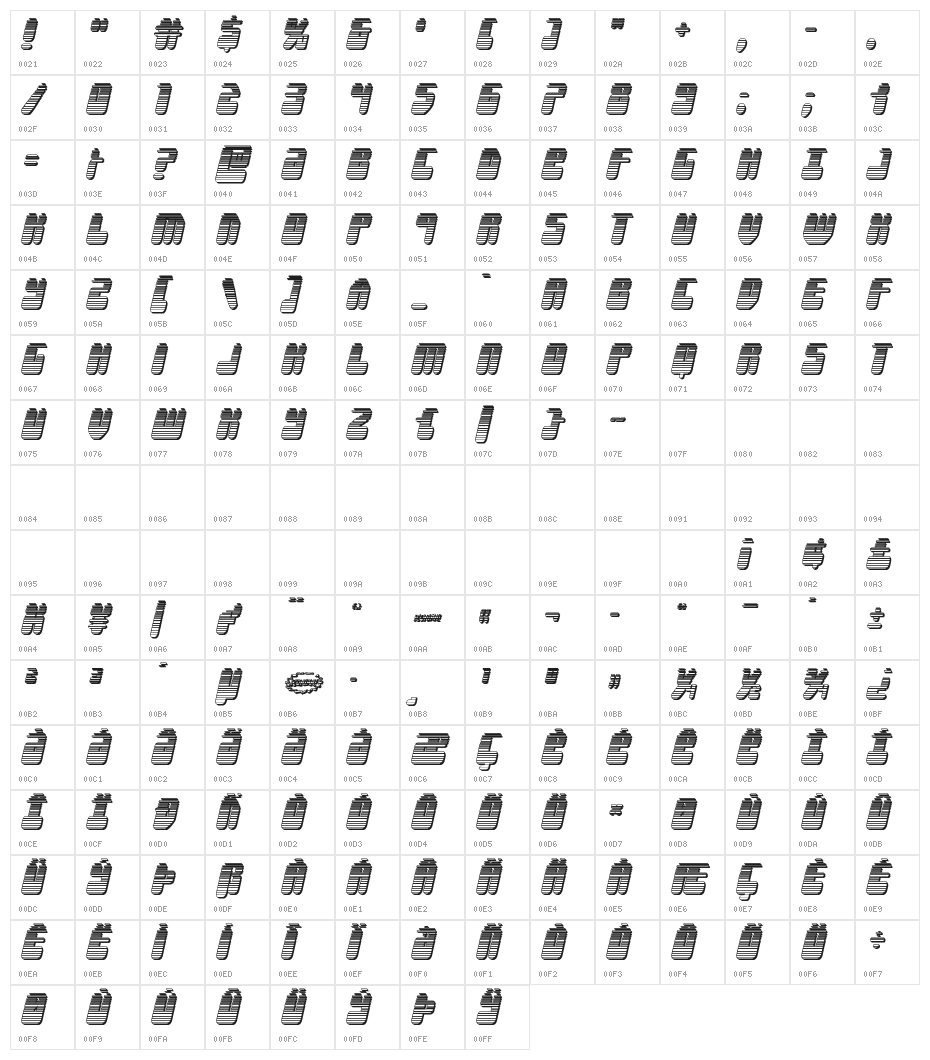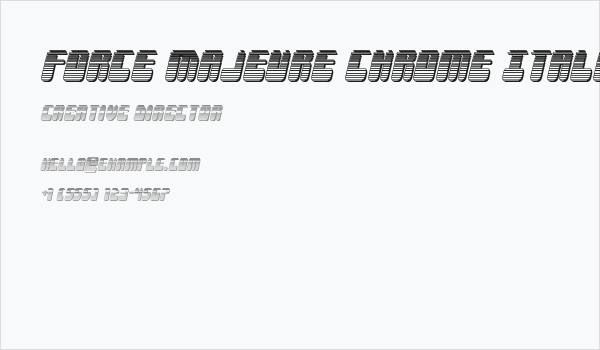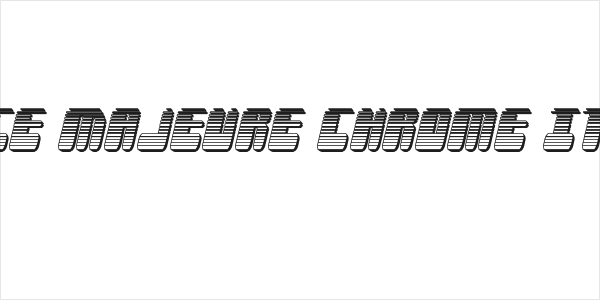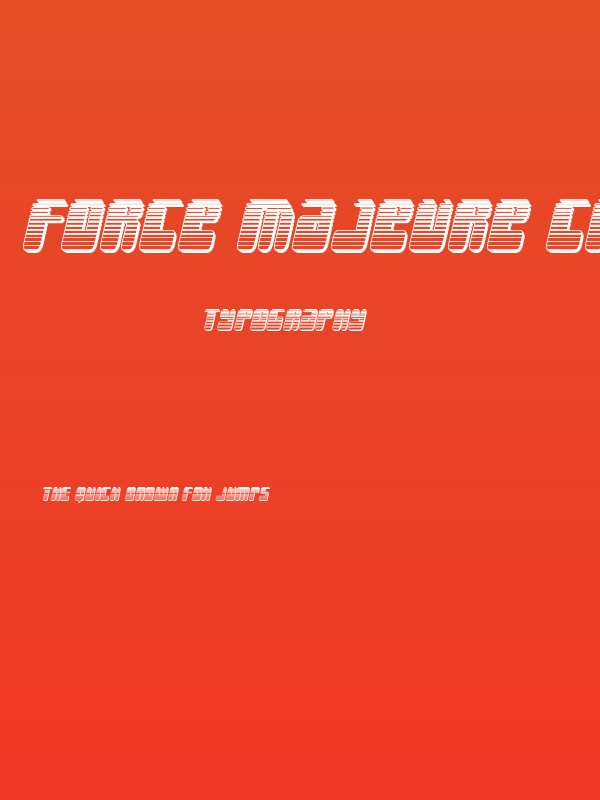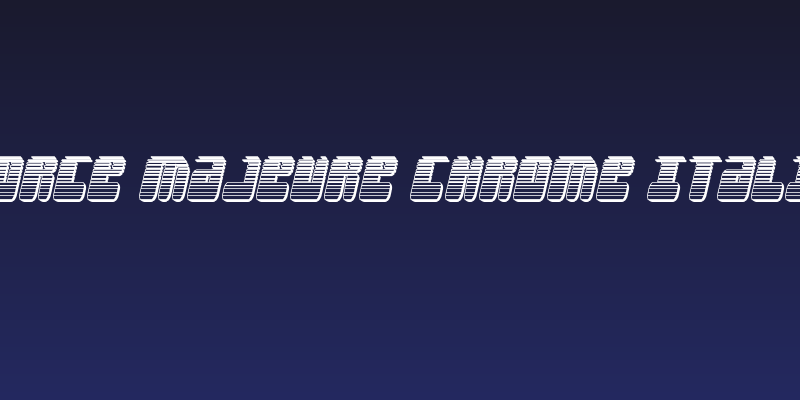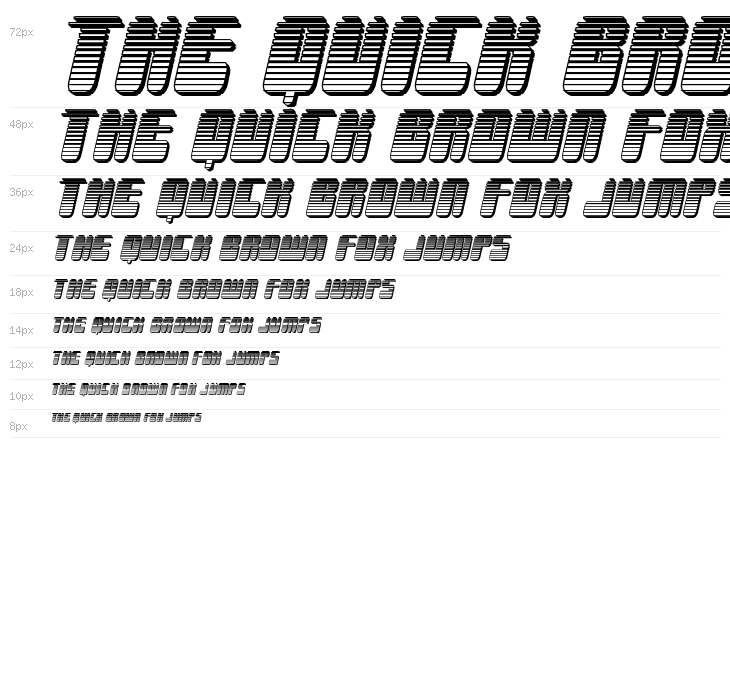
Force Majeure Chrome Italic Font
Force Majeure Chrome Italic Description
This font features a bold, futuristic design with a distinct striped pattern running horizontally across each character. The letters are uppercase and lowercase, with numerals and a selection of special characters. The style is highly decorative, with a modern, digital aesthetic that suggests movement and speed. The italic slant adds a dynamic feel, enhancing the sense of forward motion. The characters are wide and have a consistent thickness, contributing to a cohesive and striking visual impact. This font is ideal for projects that require a bold statement and a modern, tech-inspired look.